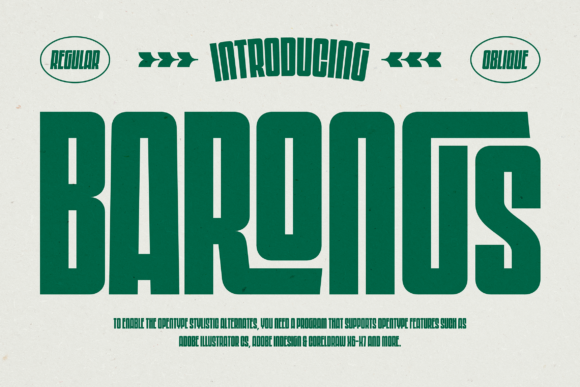
Meet Barongs, the display font that oozes confidence and demands attention. Its bold, thick letters exude a sense of power and strength, making it the perfect choice for creating designs that leave a lasting impression.
Imagine your t-shirts, sportswear, logos, and advertisements adorned with the striking presence of Barongs. Its unique character adds an edge to your designs, ensuring they stand out from the crowd.
Barongs is a font that speaks volumes, conveying a message of boldness and confidence. It's not just a font; it's a statement. A statement that says, "I am here, I am bold, and I am not afraid to be seen."
With Barongs, you have a font that's versatile and adaptable, ready to take on any design challenge. Whether you're creating posters, flyers, social media graphics, or website designs, Barongs has the power to transform your words into captivating visuals.
Unleash your creativity and let Barongs take your designs to new heights. Its bold, thick lettering is the perfect canvas for your imagination, allowing you to craft designs that resonate with your audience and leave a lasting impact.
Don't settle for ordinary fonts. Embrace the power of Barongs and watch your designs come alive with boldness, confidence, and a touch of audacity.